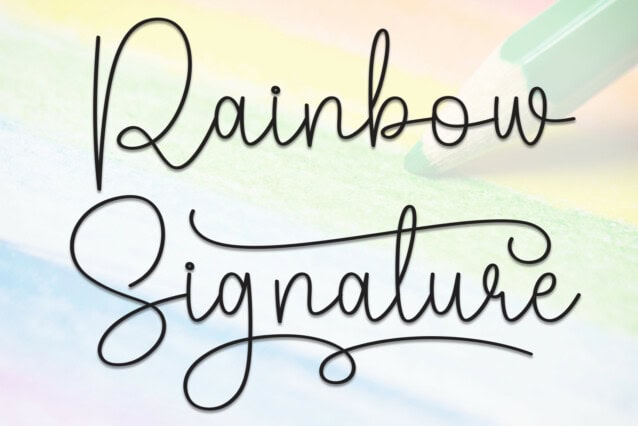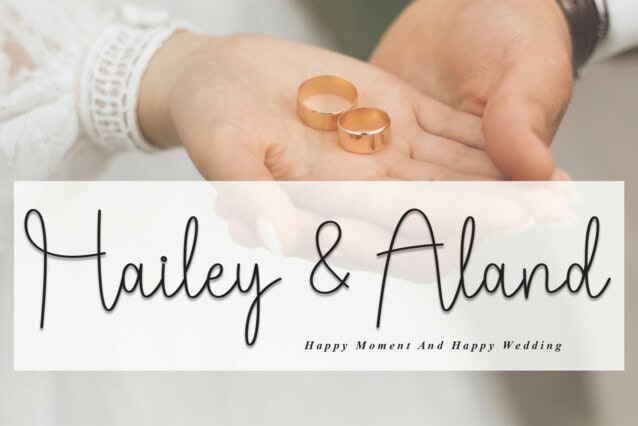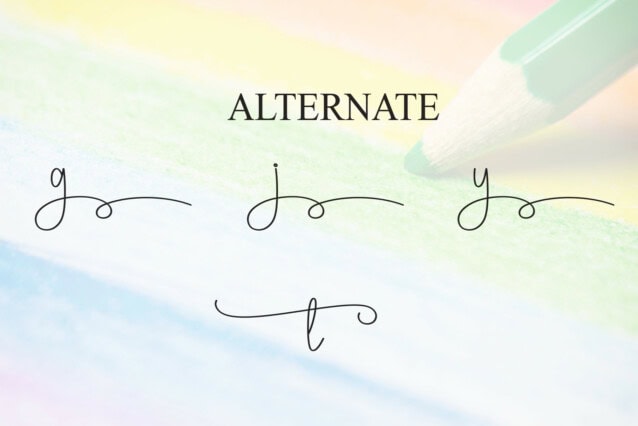
Rainbow Signature Script Font is a sweet and friendly handwritten display font. Cute and fun, this font is ideal for writing wedding invitations, cards, or any other design that might need a playful touch!